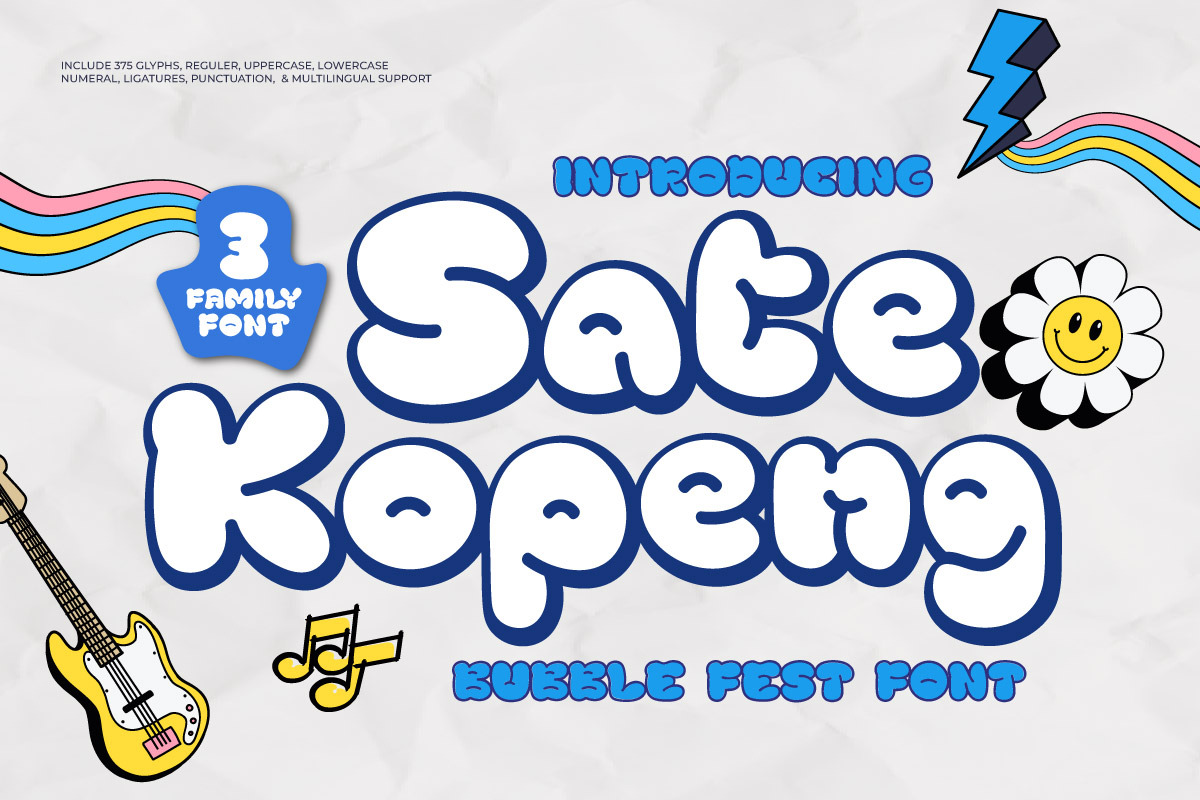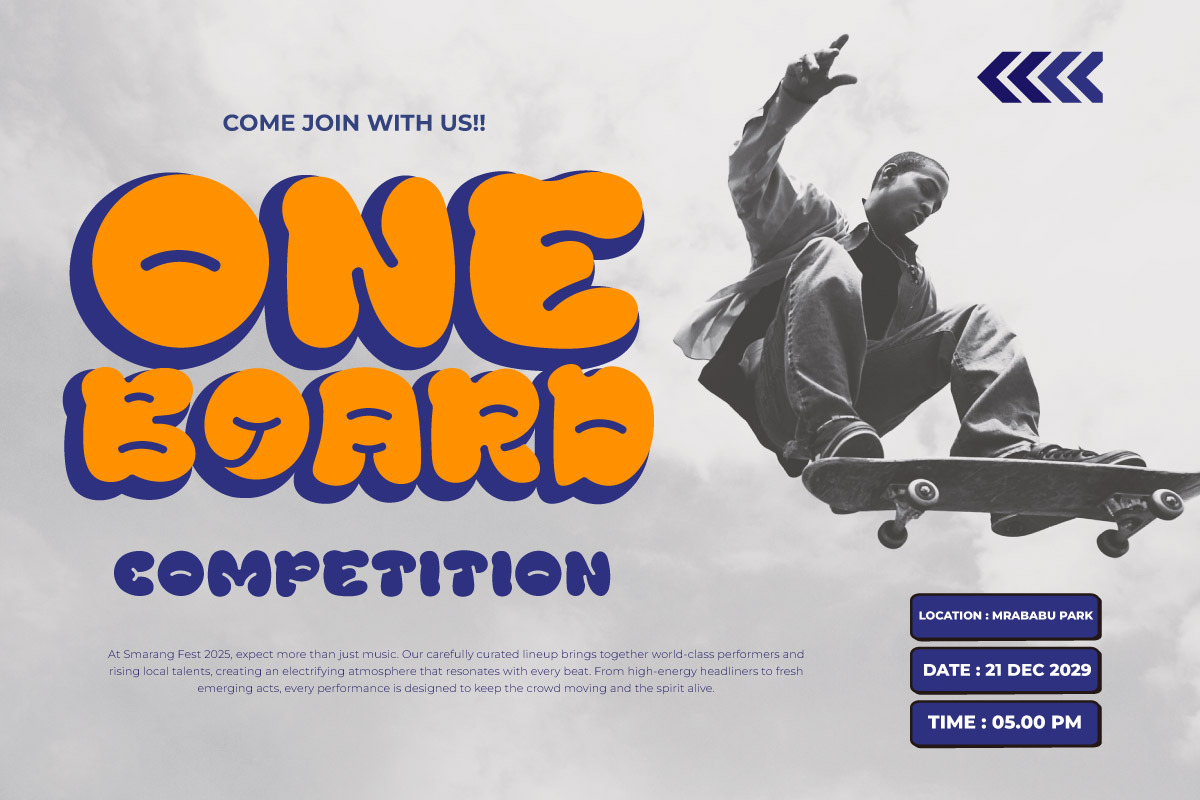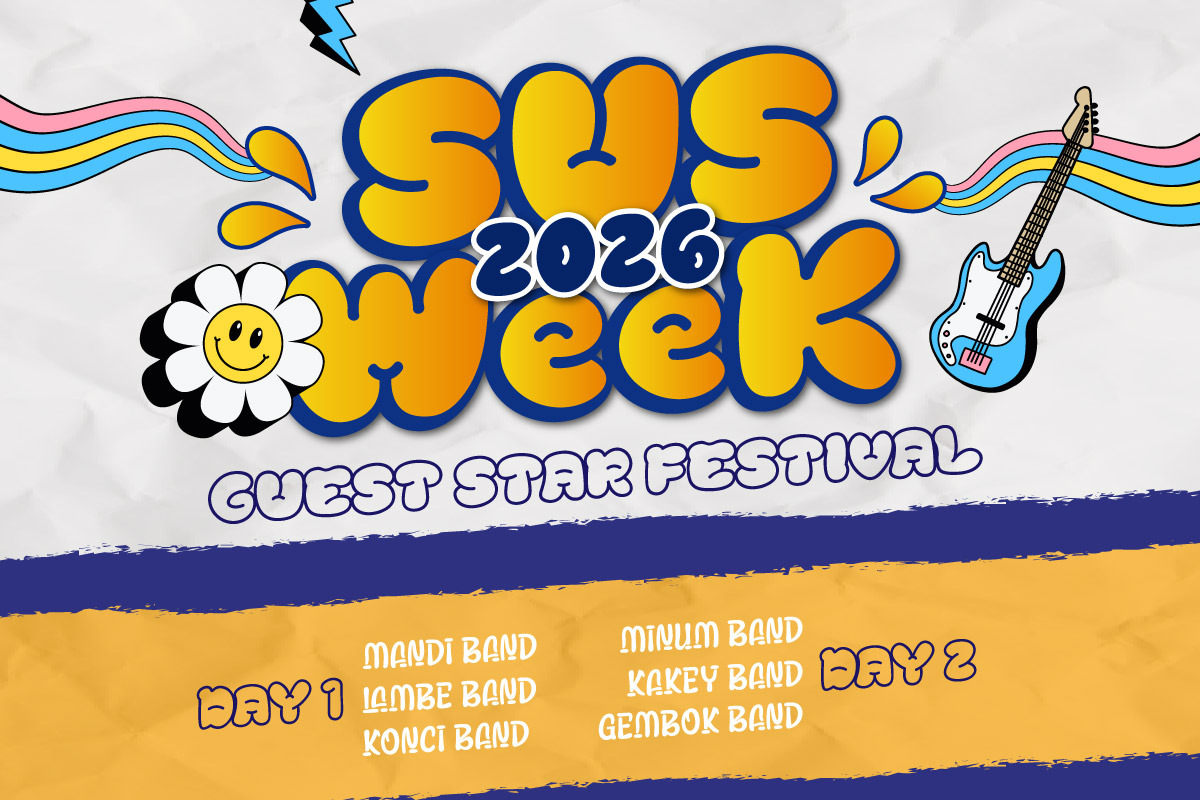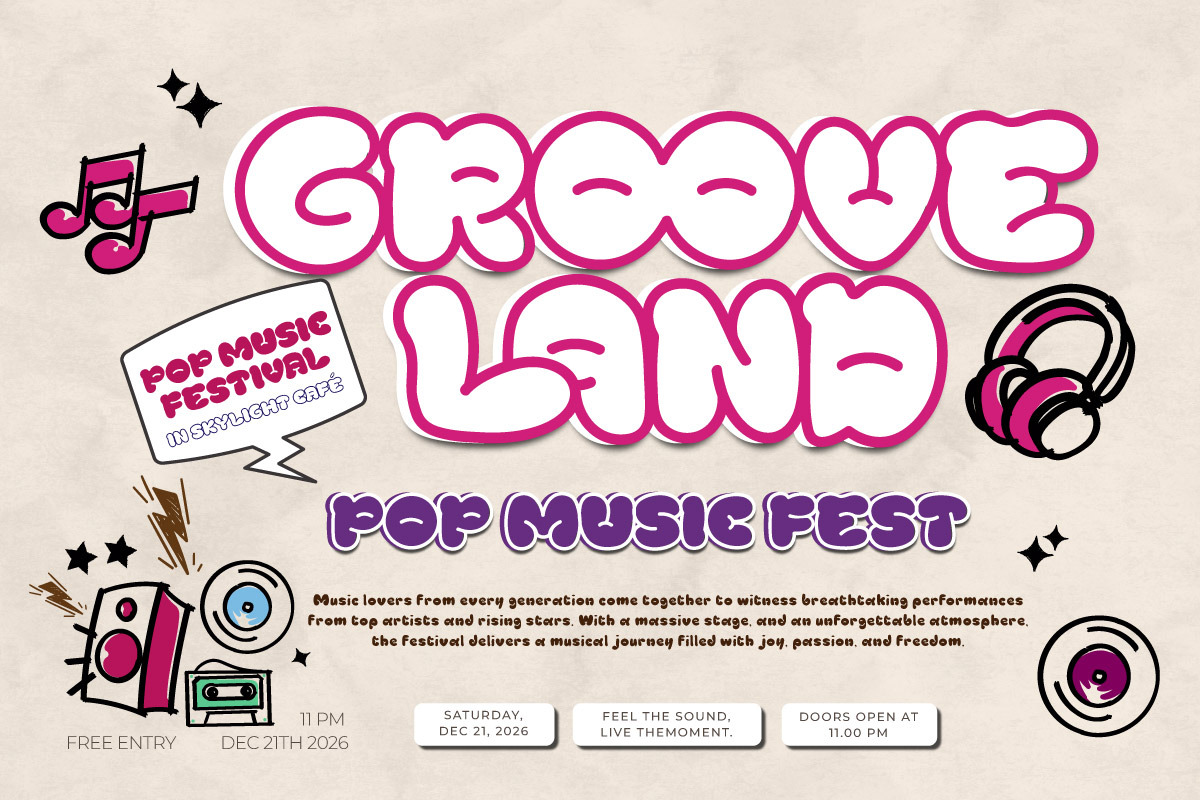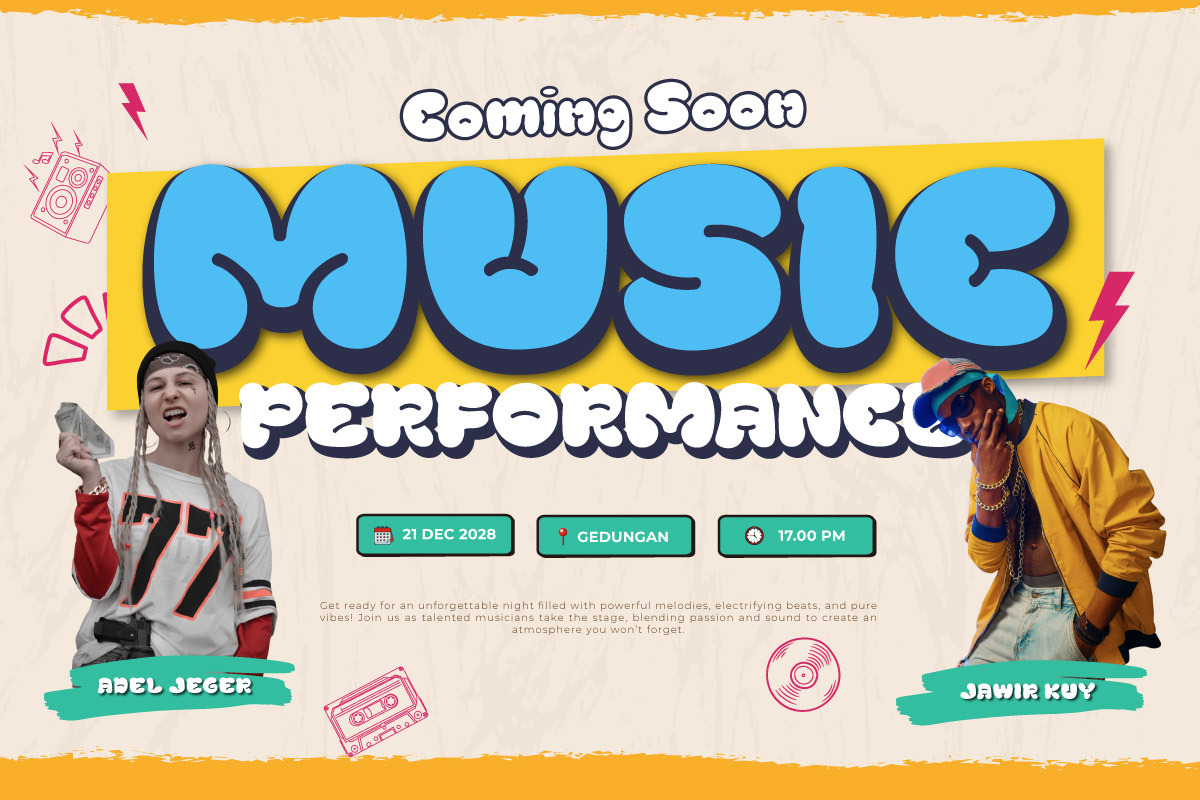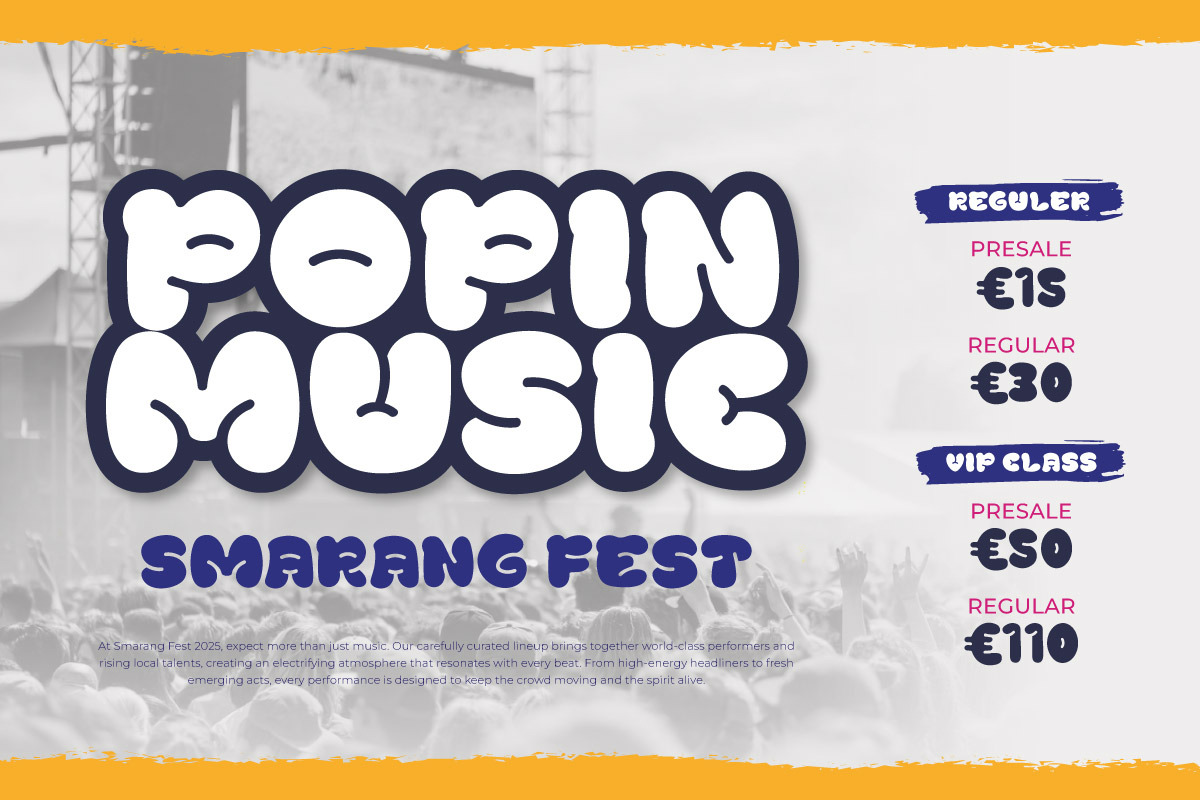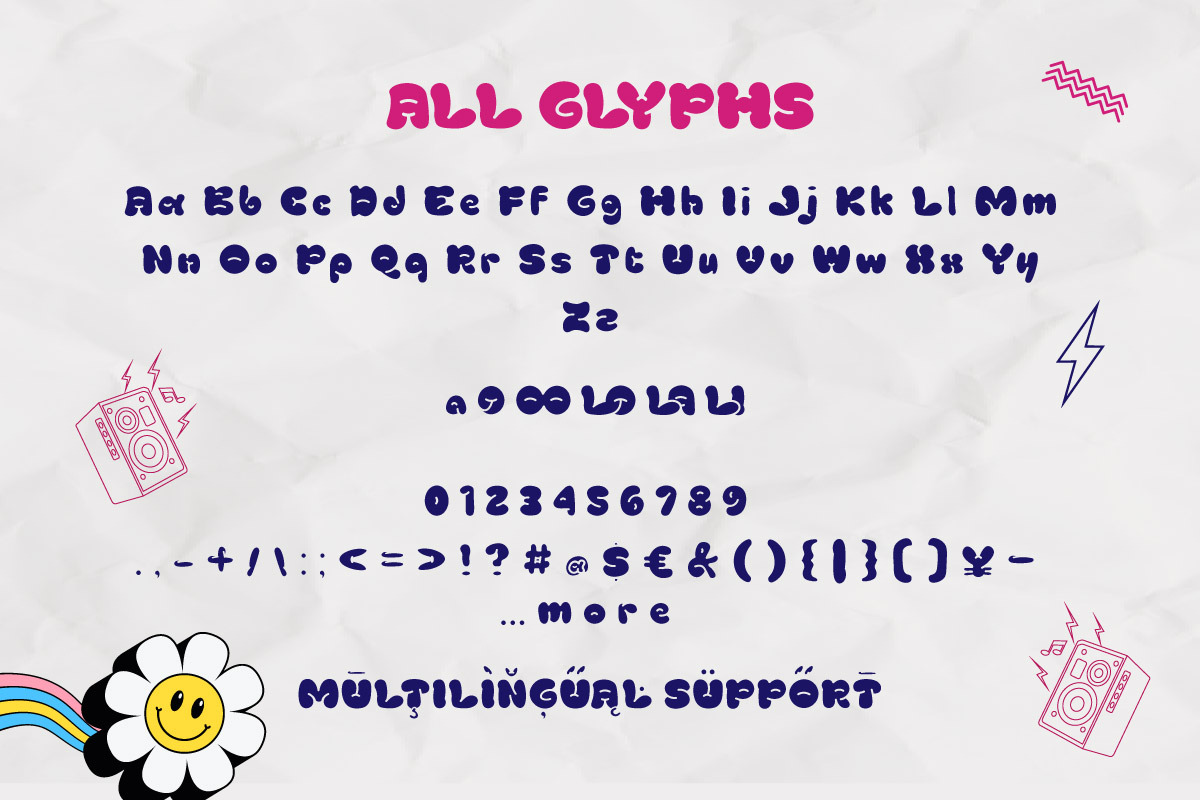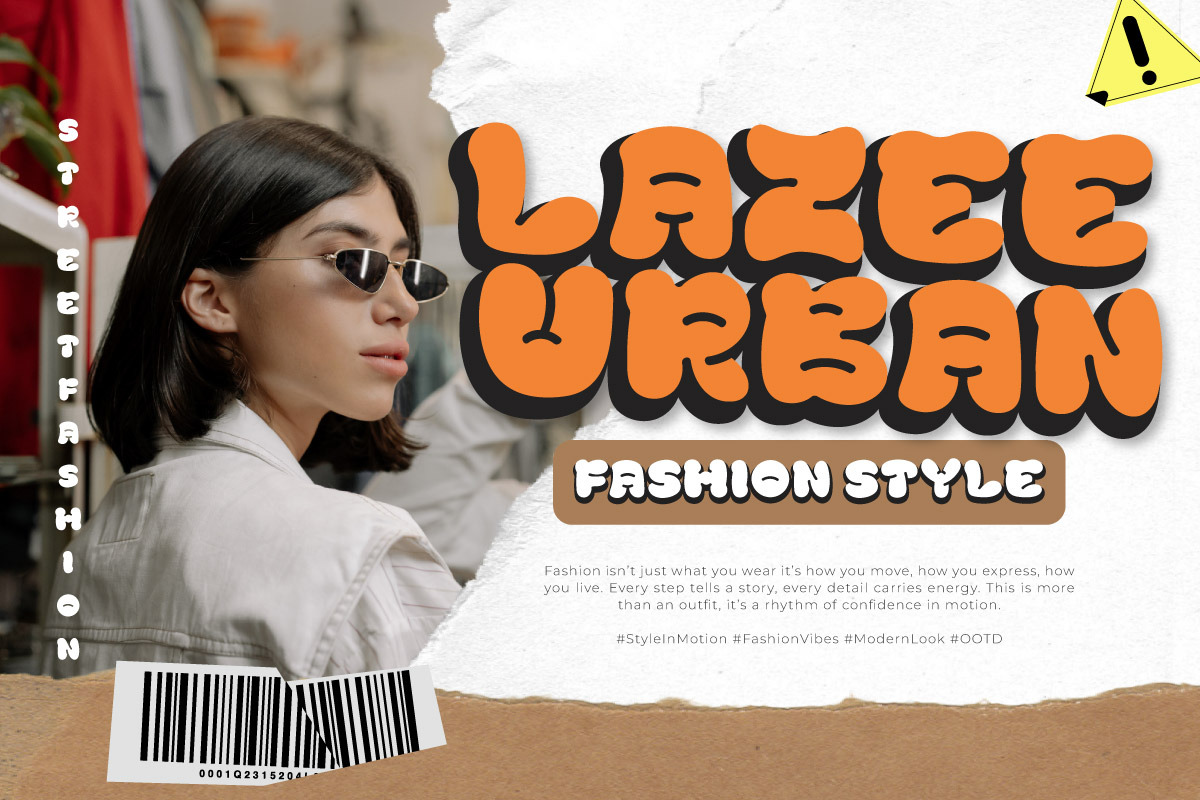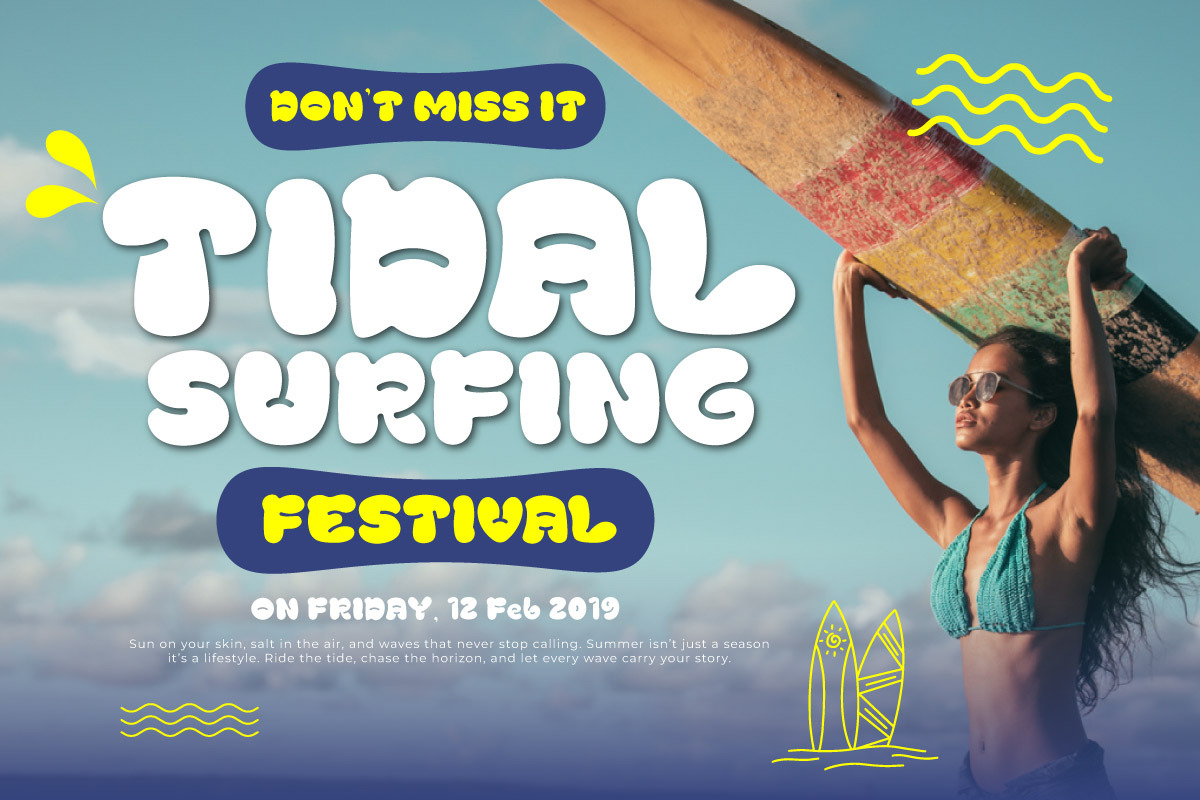
Sate Kopeng - Festival Display Font
BRING THE FIESTA TO YOUR DESIGNS WITH FUN, VIBRANT, AND EYE-CATCHING TYPOGRAPHY! Sate Kopeng is a playful and bold display font that embodies the joyful, carefree spirit of street festivals and cultural celebrations. With its bubbly, rounded forms and energetic vibe, this font is perfect for adding a splash of fun and creativity to any project. Whether you’re designing for a music event, a food fair, or urban-themed content, Sate Kopeng ensures your message stands out with personality and charm.
This font comes in 3 exciting styles—Regular, Outline, and Solid—giving you endless possibilities to mix, match, and layer for captivating typographic compositions. With over 375 glyphs, including uppercase and lowercase letters, numerals, ligatures, punctuation, and extensive multilingual support, Sate Kopeng offers both versatility and functionality. Ideal for posters, logos, merchandise, social media graphics, and anything that calls for a festive, youthful touch.
Unleash your creativity and spread good vibes with Sate Kopeng—a font that’s as fun to use as it is to look at!
- Multilingual Support: Fully supports 85+ languages, including: Afrikaans, Albanian, Asu, Basque, Bemba, Bena, Breton, Catalan, Chiga, Cornish, Croatian, Czech, Danish, Dutch, Embu, English, Esperanto, Estonian, Filipino, Finnish, French, Friulian, Galician, Gusii, Hungarian, Indonesian, Irish, Italian, Kabuverdianu, Kalenjin, Kamba, Kikuyu, Kinyarwanda, Latvian, Lithuanian, Lower Sorbian, Luo, Luxembourgish, Luyia, Machame, Makhuwa-Meetto, Makonde, Malagasy, Maltese, Manx, Meru, Morisyen, North Ndebele, Norwegian Bokmål, Norwegian Nynorsk, Nyankole, Oromo, Polish, Portuguese, Quechua, Romanian, Romansh, Rombo, Rundi, Rwa, Samburu, Sango, Sangu, Scottish Gaelic, Sena, Serbian, Shambala, Shona, Slovak, Slovenian, Soga, Somali, Spanish, Swahili, Swedish, Swiss German, Taita, Teso, Turkish, Upper Sorbian, Uzbek (Latin), Volapük, Vunjo, Walser, Zulu.